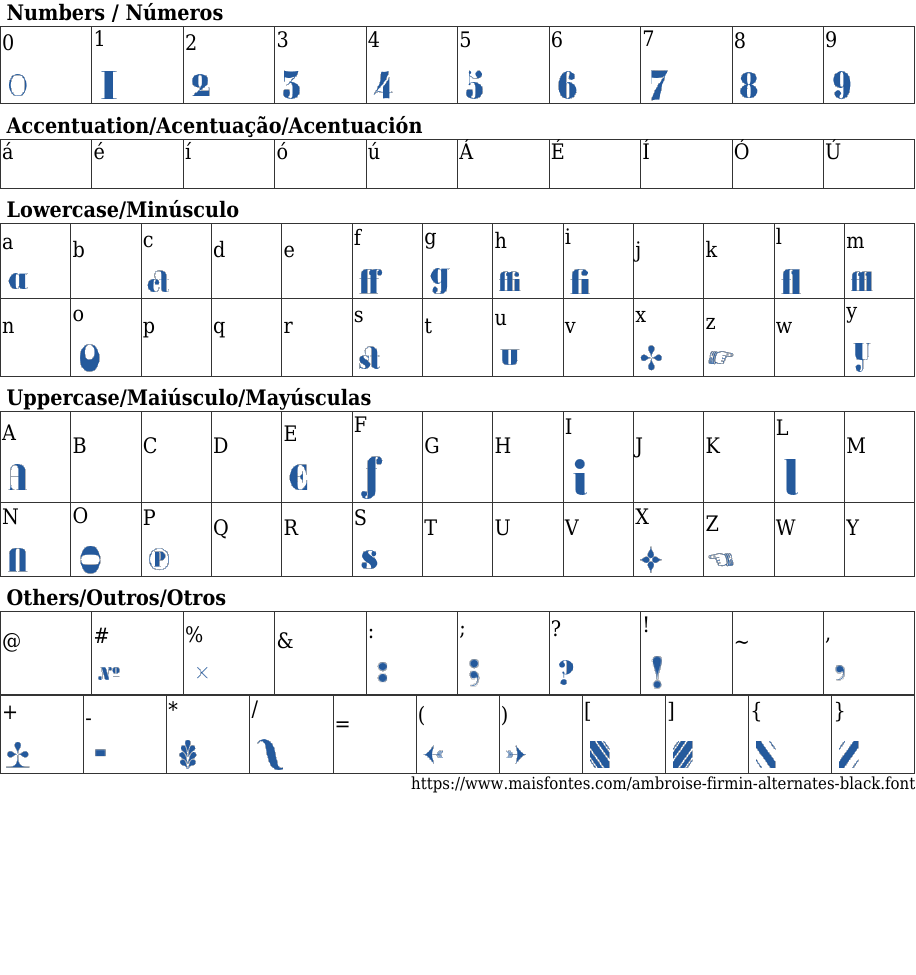
Ambroise Std Firmin Font An exquisite didot font in 18 series ambroise is a contemporary interpretation of various typefaces belonging to didot’s late. Ambroise std font family was designed by jean françois porchez and published by typofonderie. Ambroise std firmin regular by adobe systems incorporated. Buy & download ambroise std firmin regular, a font by typofonderie. Learn more about its features, similar fonts, and font pairing. An exquisite didot font in 18 series ambroise is a contemporary interpretation of various typefaces belonging to didot’s late. Originally published in 2001, this brand new revision of ambroise, — including new italics — has taken 15 years! A serif typeface with 17 styles, available from adobe fonts for sync and. 'find my font' is an easy to use application for identifying fonts in digital images. Ambroise std contains 18 styles and family. Explore ambroise designed by jean françois porchez at adobe fonts. Download ambroise std firmin regular font. Download ambroise firmin for free, view sample text, rating and more on fontsgeek.com
JeanFrançois Porchez Ambroise Std Firmin Font Learn more about its features, similar fonts, and font pairing. Originally published in 2001, this brand new revision of ambroise, — including new italics — has taken 15 years! 'find my font' is an easy to use application for identifying fonts in digital images. Download ambroise firmin for free, view sample text, rating and more on fontsgeek.com Ambroise std firmin. Ambroise Std Firmin Font.
Ambroise Firmin Alternates Bold 001.000 Fonts Free Download Ambroise Std Firmin Font Ambroise std contains 18 styles and family. 'find my font' is an easy to use application for identifying fonts in digital images. Originally published in 2001, this brand new revision of ambroise, — including new italics — has taken 15 years! Learn more about its features, similar fonts, and font pairing. Download ambroise std firmin regular font. Explore ambroise designed. Ambroise Std Firmin Font.
Ambroise Firmin Alternates Bold Download for free at Free Fonts Free Ambroise Std Firmin Font Explore ambroise designed by jean françois porchez at adobe fonts. Originally published in 2001, this brand new revision of ambroise, — including new italics — has taken 15 years! Ambroise std firmin regular by adobe systems incorporated. An exquisite didot font in 18 series ambroise is a contemporary interpretation of various typefaces belonging to didot’s late. Buy & download ambroise. Ambroise Std Firmin Font.